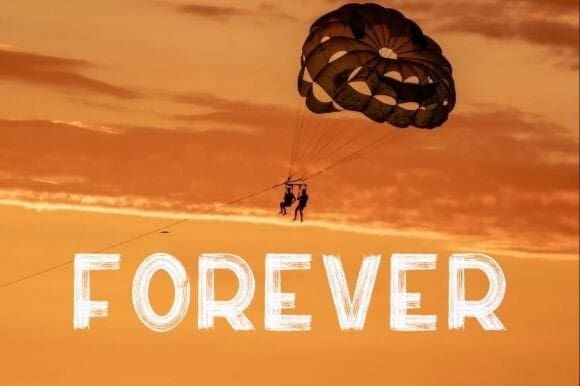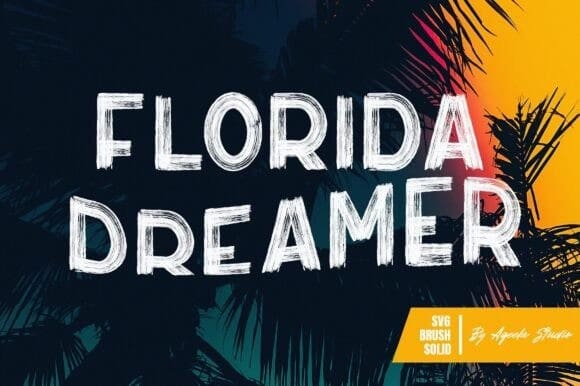
Florida Dreamer Font
Florida Dreamer Font: captures the essence of coastal vibes and creative energy. Its graceful hand-drawn strokes mimic carefree waves on a golden shore, exuding warmth and a yearning for adventure. Perfect for designs that evoke adventure, relaxation or artistic flair, this font effortlessly combines boldness with casual charm. Whether you’re creating tropical-inspired branding, vibrant invitations or eye-catching posters, Florida Dreamer sets the tone for effortless elegance.